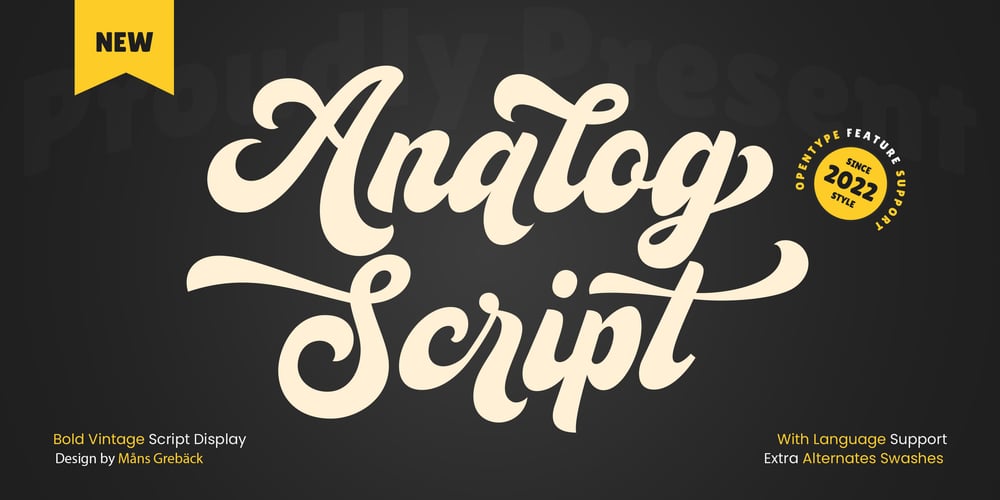
Analog Script Font Family was designed by Måns Grebäck and published by Mans Greback. Analog Script contains 2 styles and family package options. Drawn and created by Mans Greback in 2022, this lettering has a distinct style and a strong personality.Use underscore _ anywhere in a word to make a swash under the word. Example: Wonder_womanUse multiple underscores for different swashes.Example: Love______letterWrite # or ¤ after any letter to make a swash version. (Download required.)